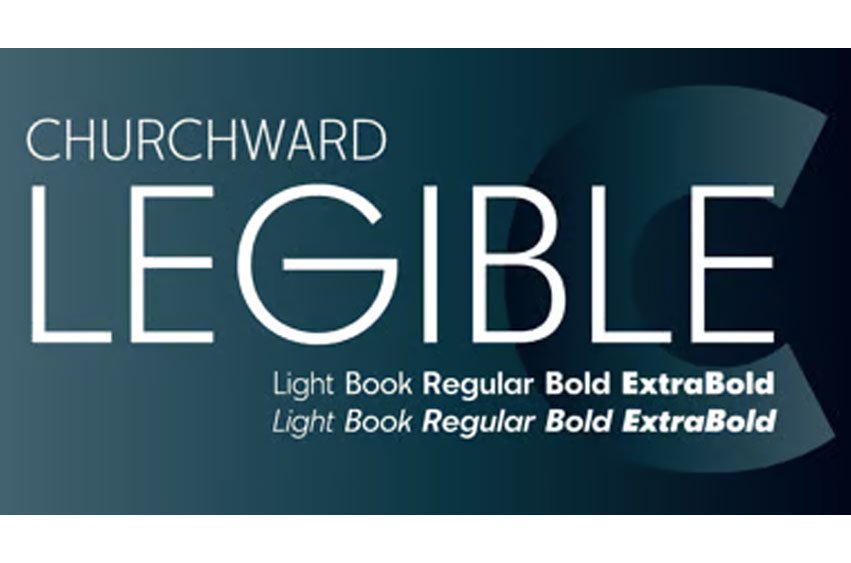
Churchward Legible Font
Churchward Legible Font is an extensive typeface family designed in 2002 by Joseph Churchward. A geometric sans serif, it is, as its name boasts, highly legible and readable on screen as well as in print.
The family includes five weights from Light to Extra Bold, with companion italics, and all fonts support many European languages.